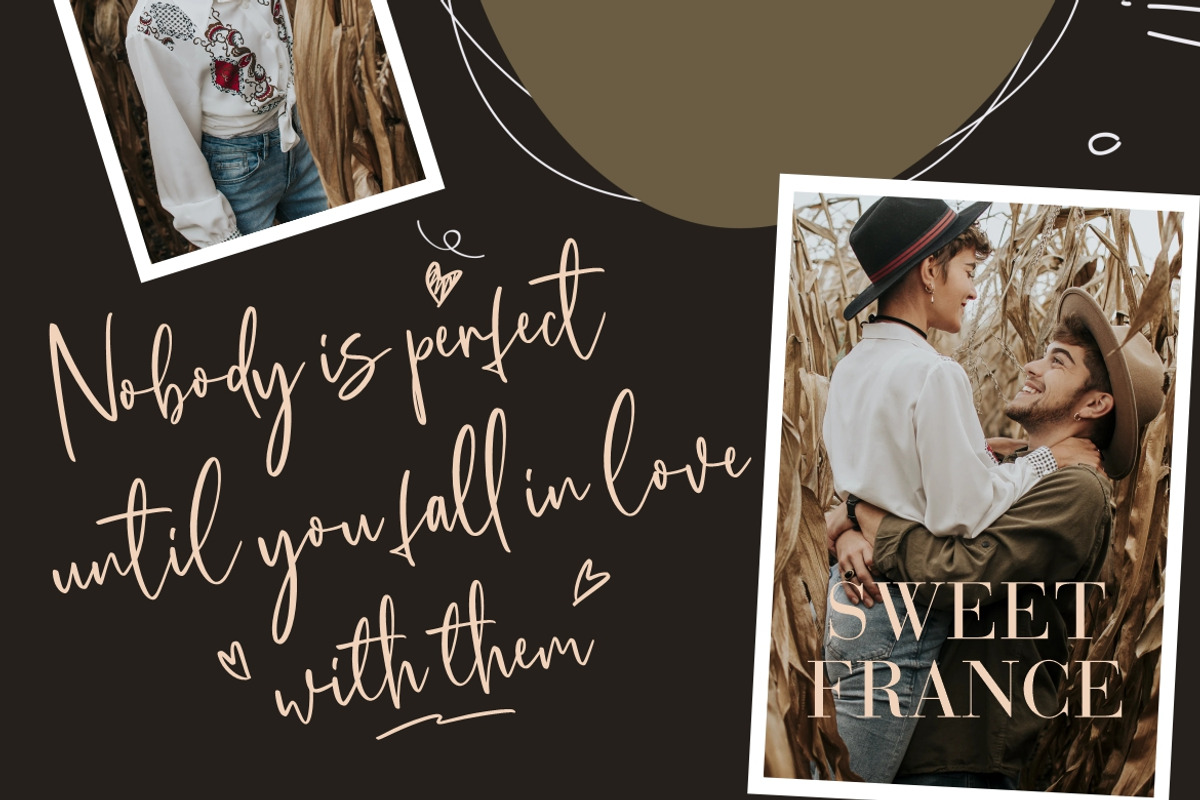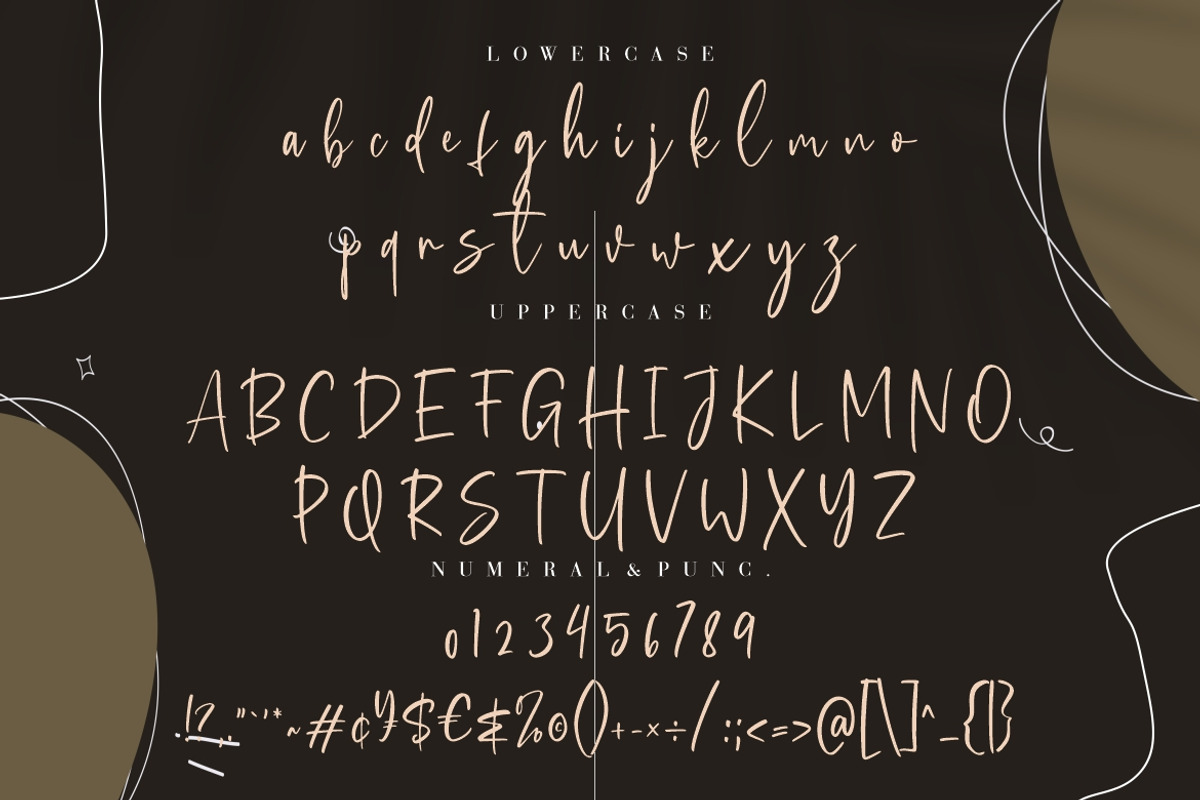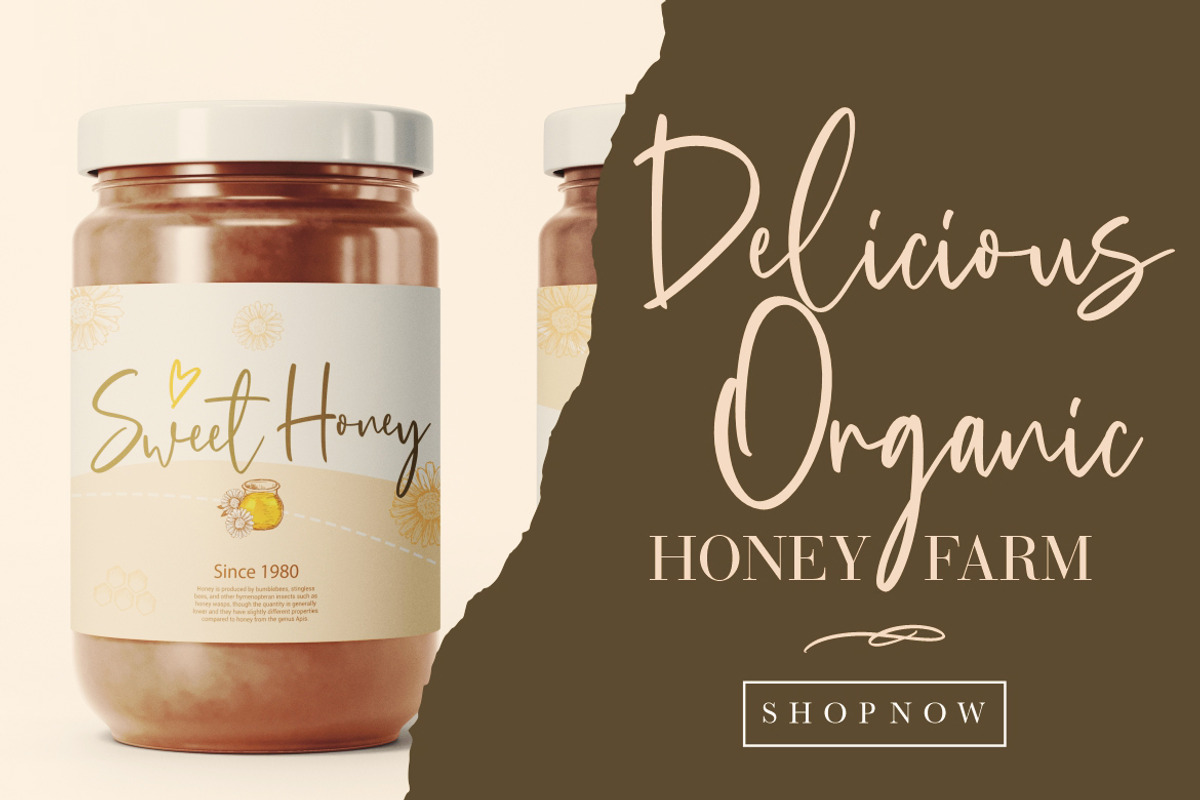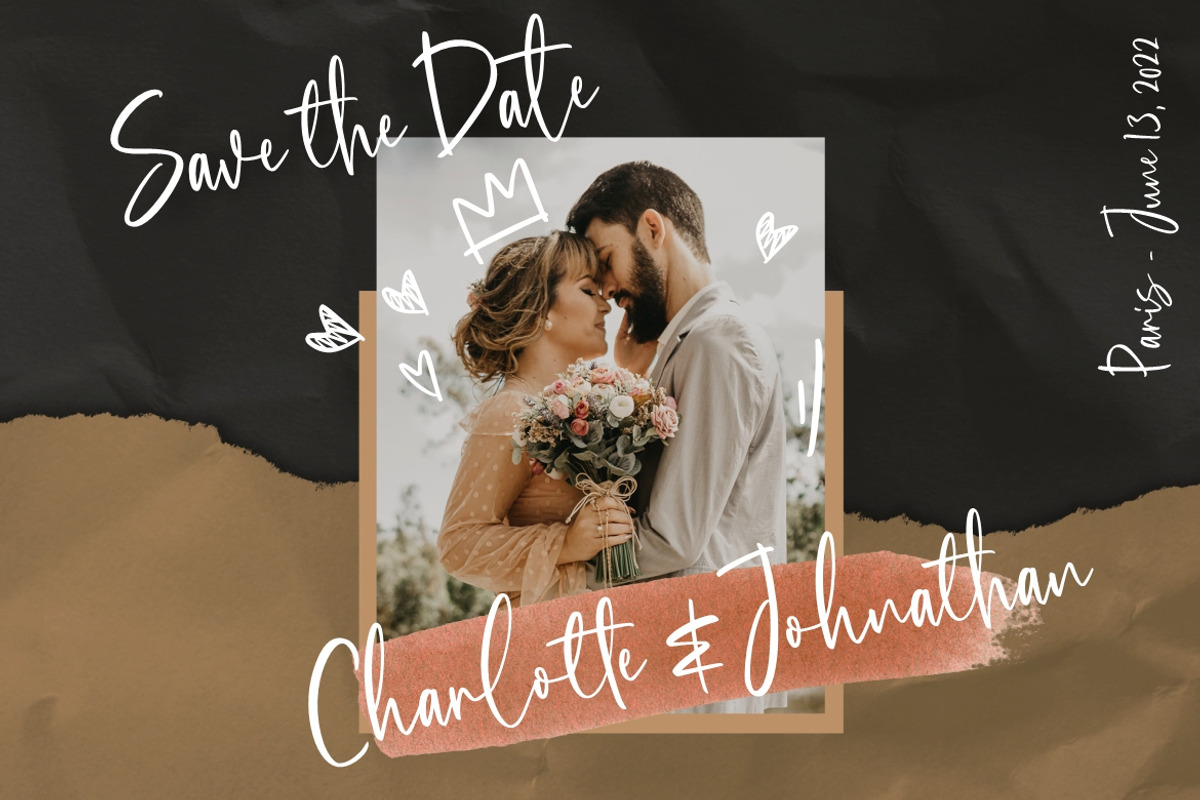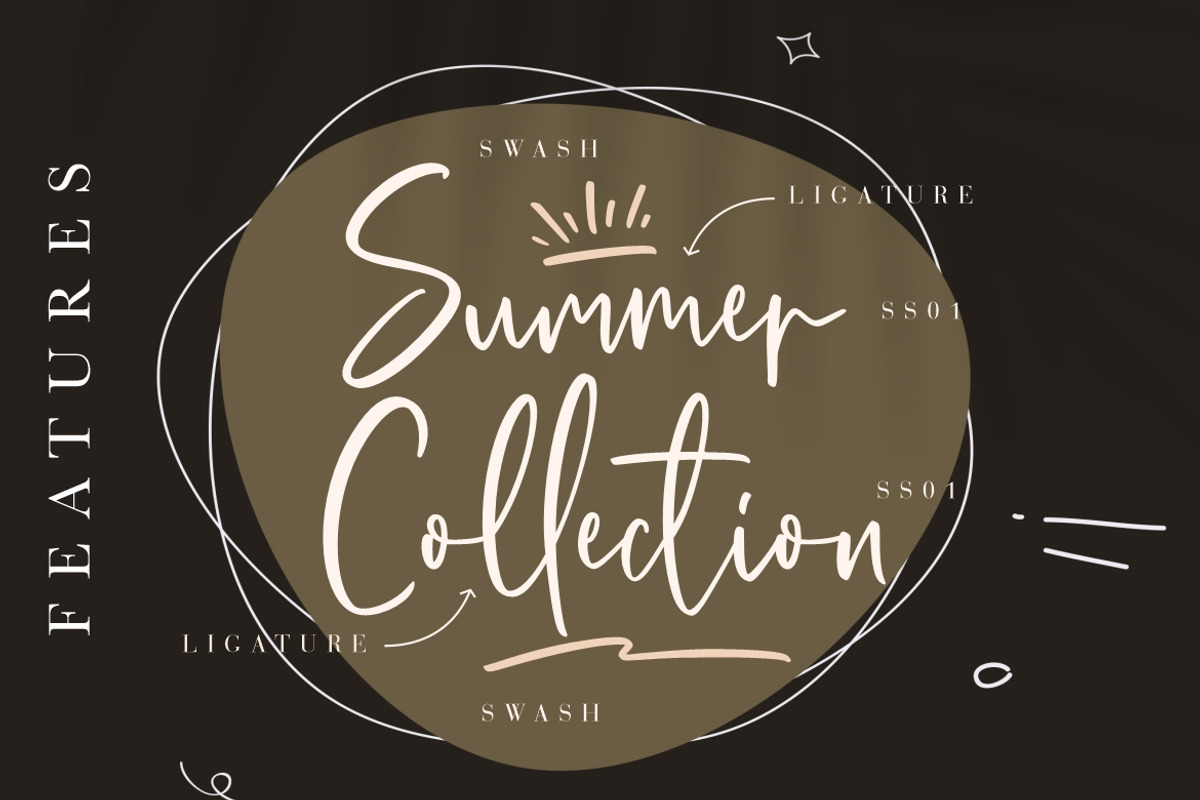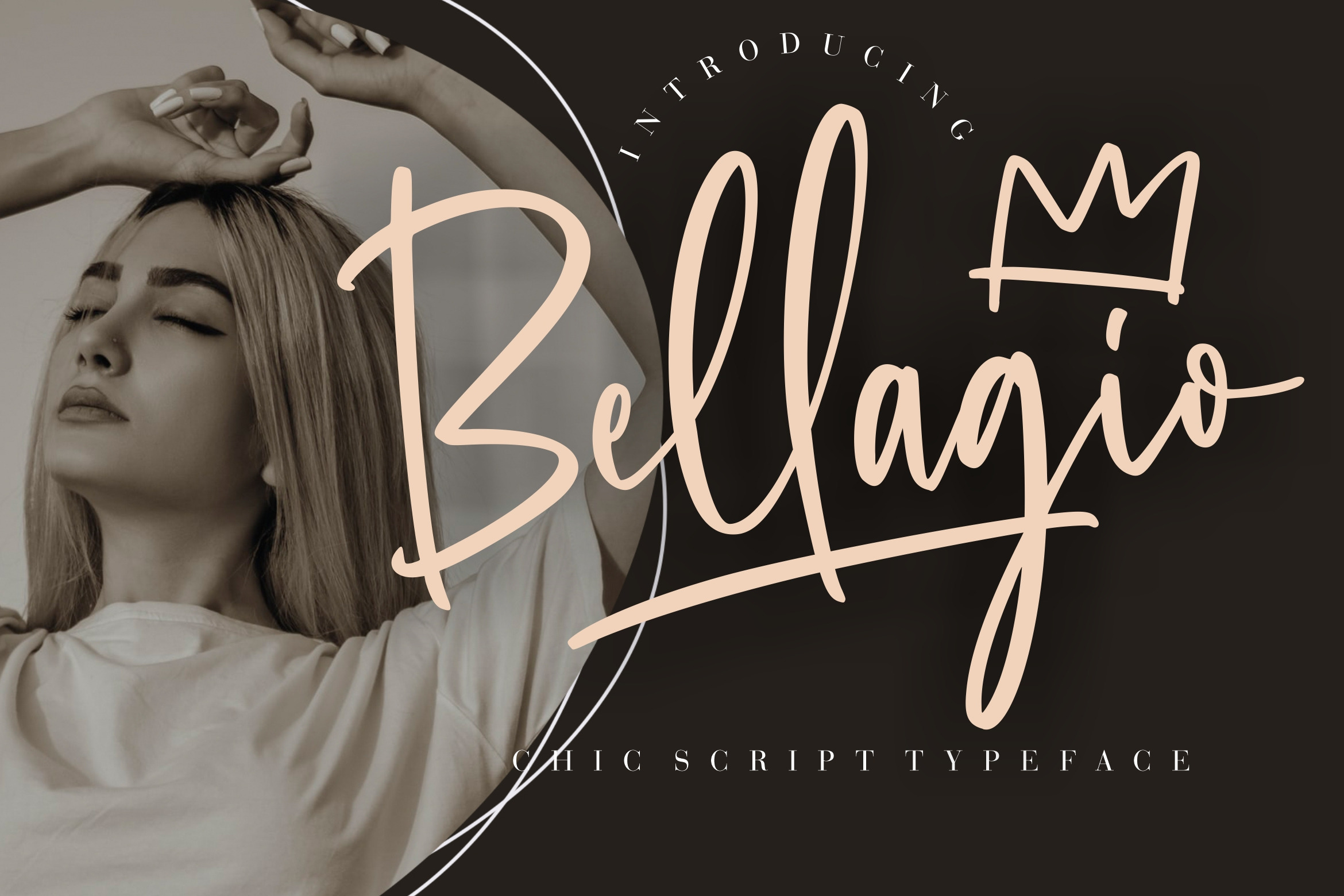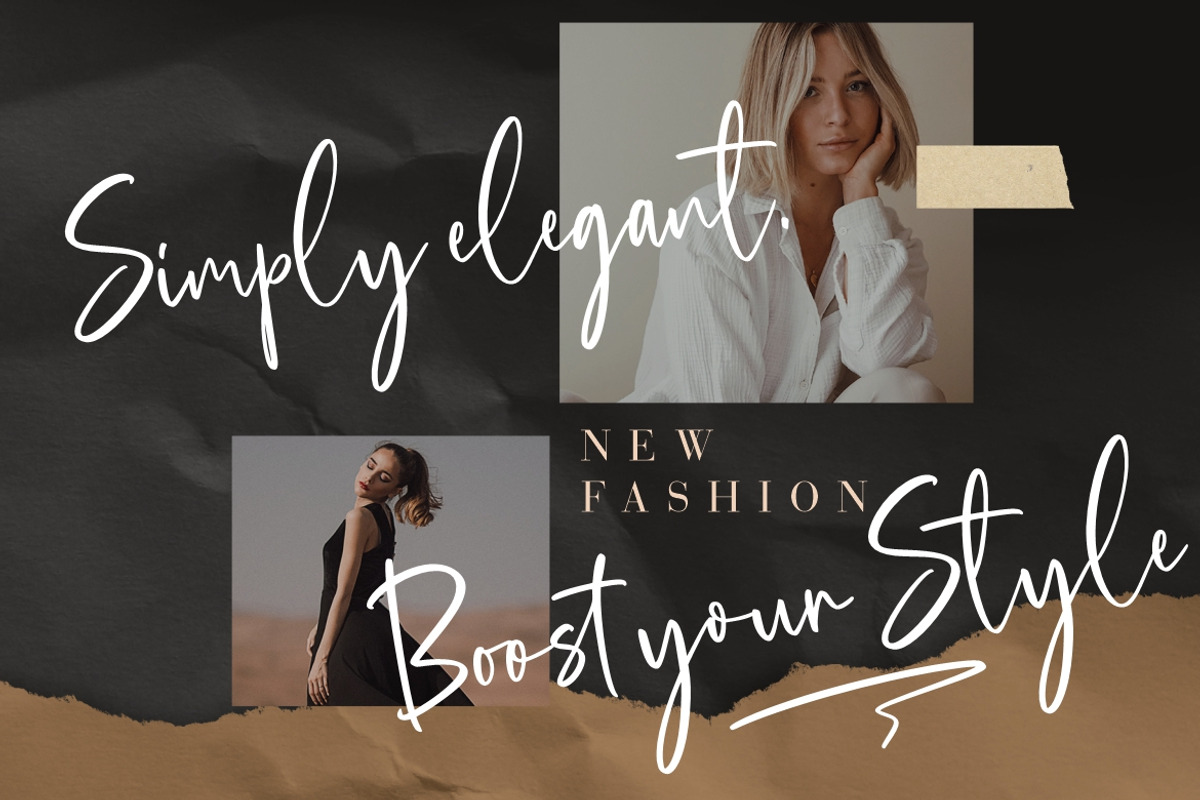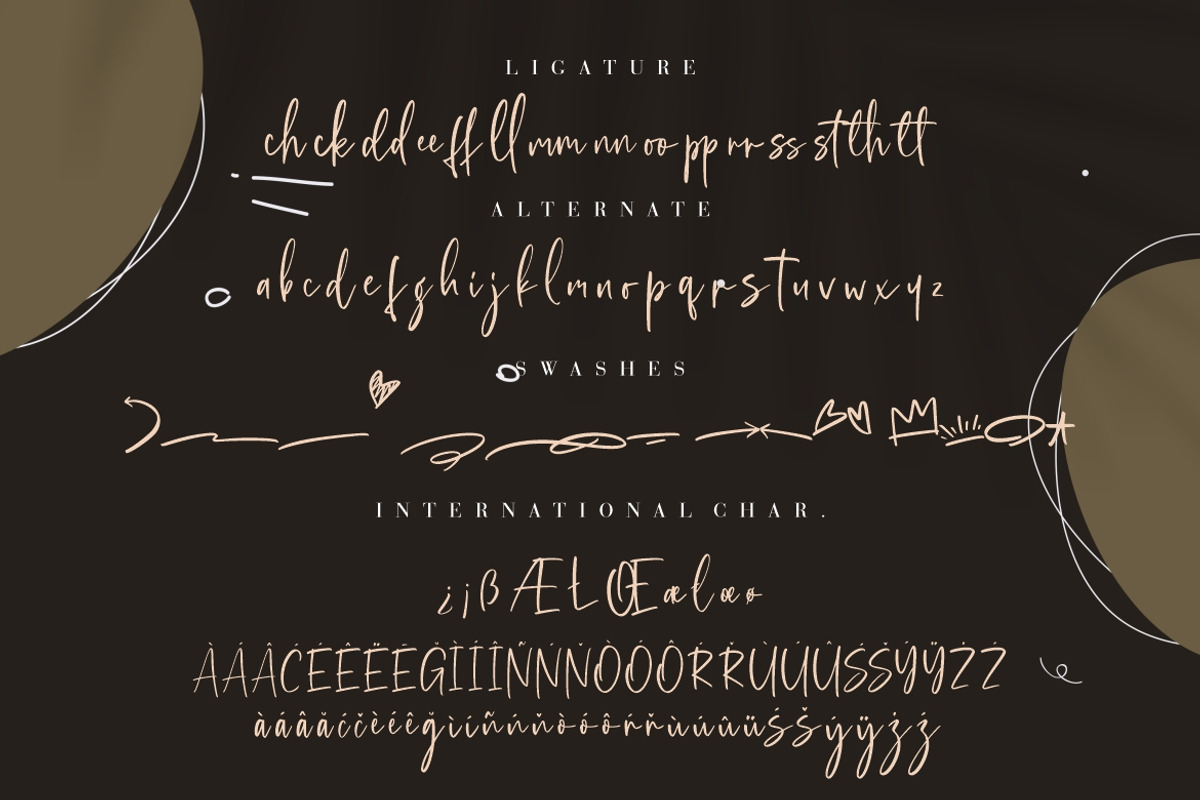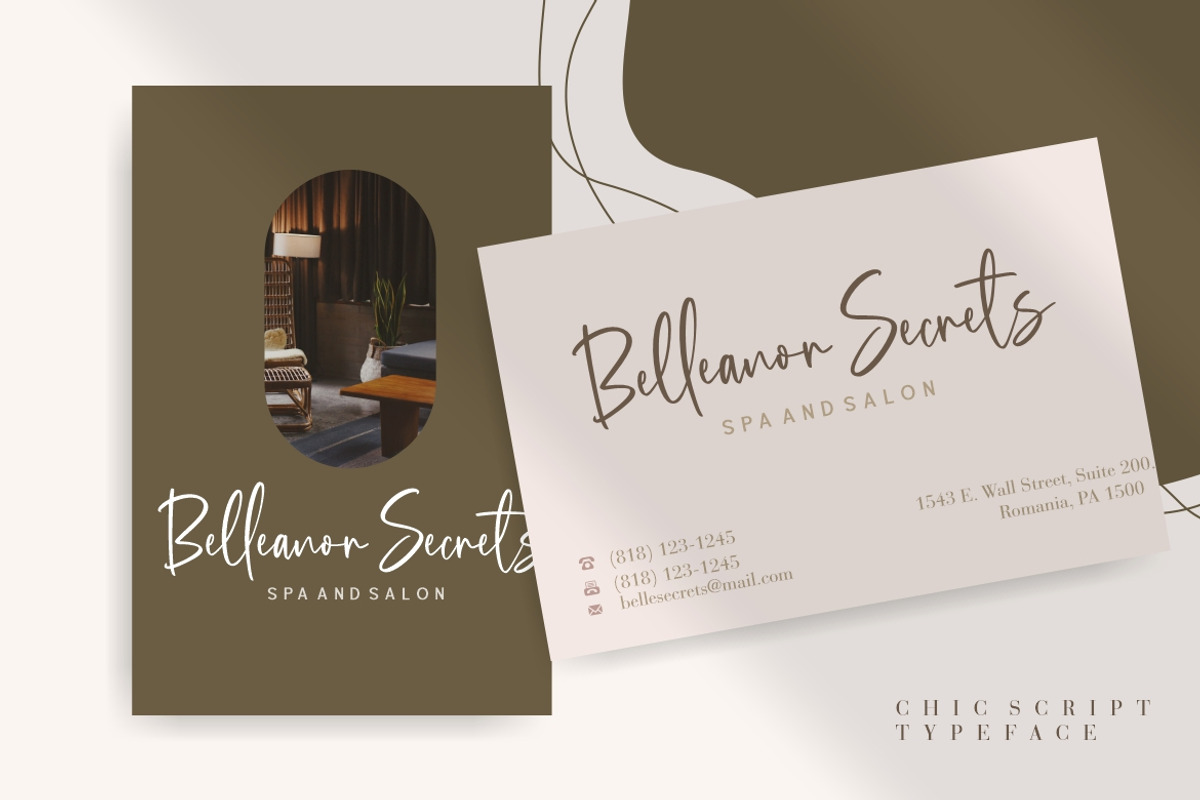
Bellagio Chic Script Typeface
Bellagio is chic script font with elegant and classy movement that perfect for your latest project.
Bellagio is perfect for branding projects, logo, wedding designs, social media posts, advertisements, product packaging, product designs, label, photography, watermark, invitation, stationery and any projects that need handwriting taste.
- Ligature, Alternate & Swashes
- Fonts include multilingual support for; Afrikaans, Albanian, Czech, Danish, Dutch, English, Estonian, Finnish, French, German, Hungarian, Italian, Latvian, Lithuanian, Norwegian, Polish, Portugese, Slovak, Slovenian, Spanisch, Swedish.